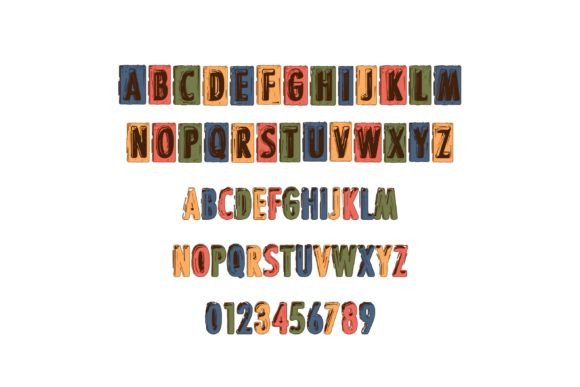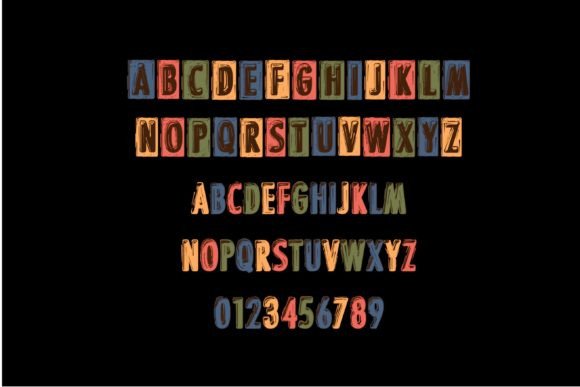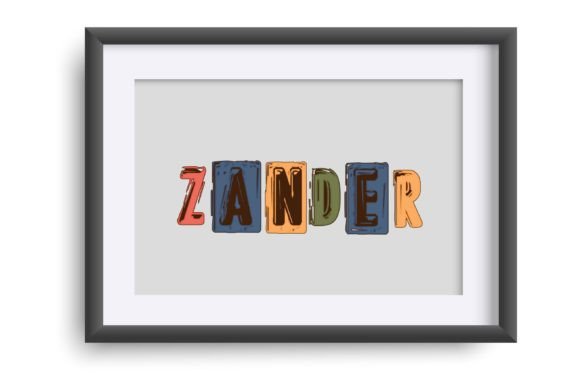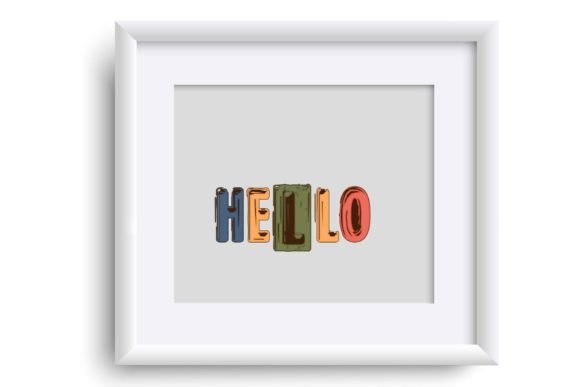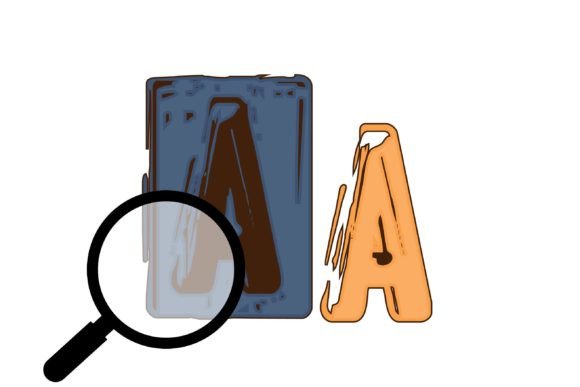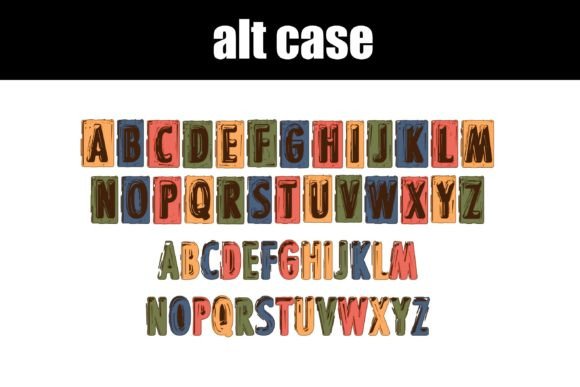
Fifties Dad Font: A Retro-Inspired Full-Color Font for Designers and Crafters
Are you looking for a font that adds a touch of nostalgia and playfulness to your designs? Look no further than the Fifties Dad Font, a blocky sans serif lettering font that features a unique, tin-punched look. In this article, we’ll explore the features of this font, how to install and use it, and its compatibility with various design programs.
A Unique and Eye-Catching Font
The Fifties Dad Font is a full-color font that boasts a distinctive, blocky sans serif lettering style reminiscent of the 1950s. Its bold, punchy look makes it perfect for designs that require a retro touch, such as craft projects, posters, and advertisements. The font comes with an alt version that contains additional colors for all the letters, accessible through your system’s character map.
The Fifties Dad Font offers endless possibilities for designers and crafters. Here are some ideas to get you started:
- Create retro-style posters, flyers, or brochures for events or promotions
- Design custom crafts, such as vinyl decals, iron-on transfers, or paper crafts
- Use the font to add a touch of nostalgia to your packaging or branding
- Experiment with the alt version’s additional colors to create unique and eye-catching designs
The Fifties Dad Font is a fun and versatile font that’s perfect for designers and crafters looking to add a retro touch to their work. With its unique, blocky sans serif lettering style and full-color capabilities, it’s sure to make your designs stand out. By following the installation and usage guidelines outlined in this article, you’ll be able to make the most of this fantastic font.